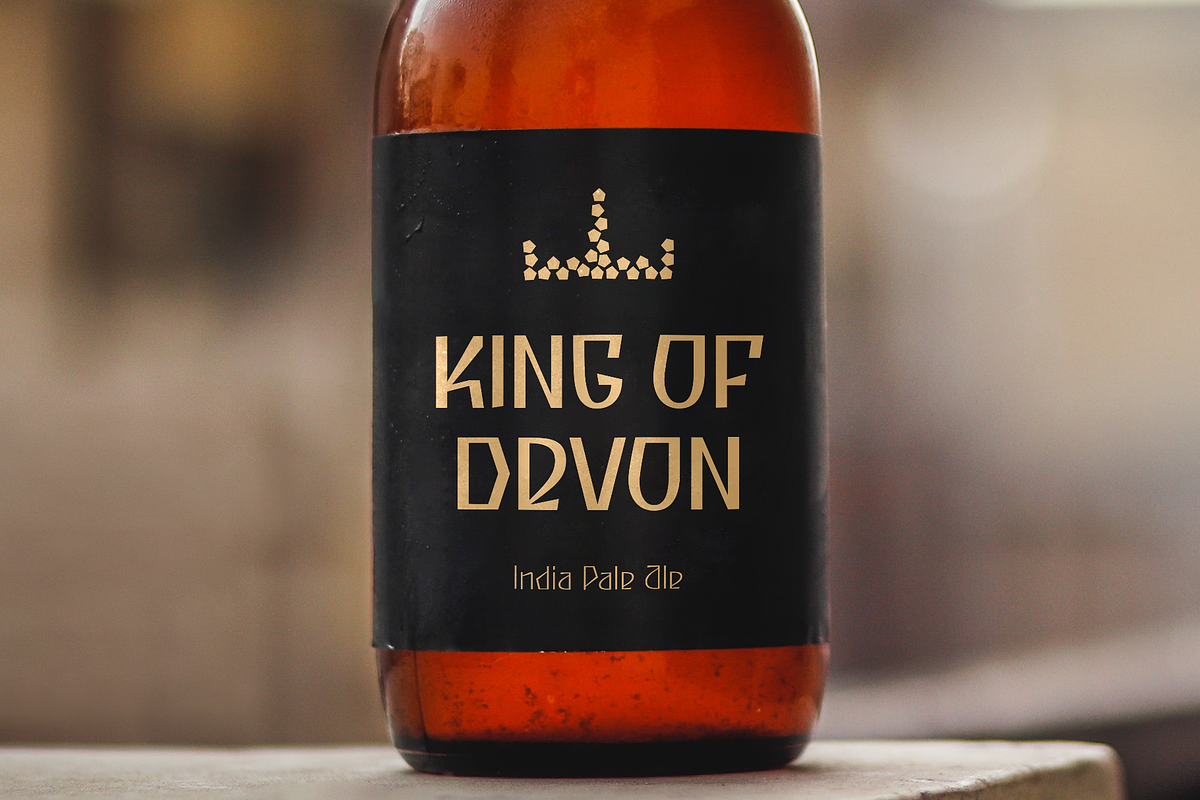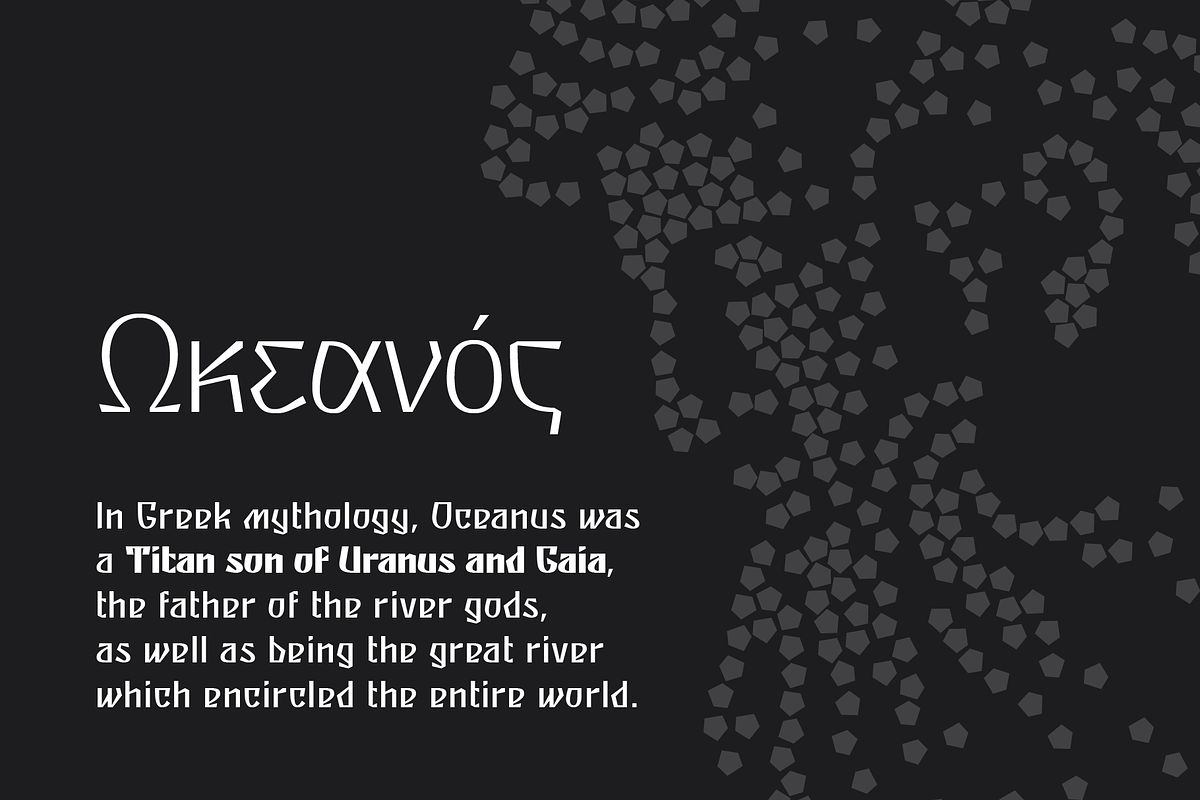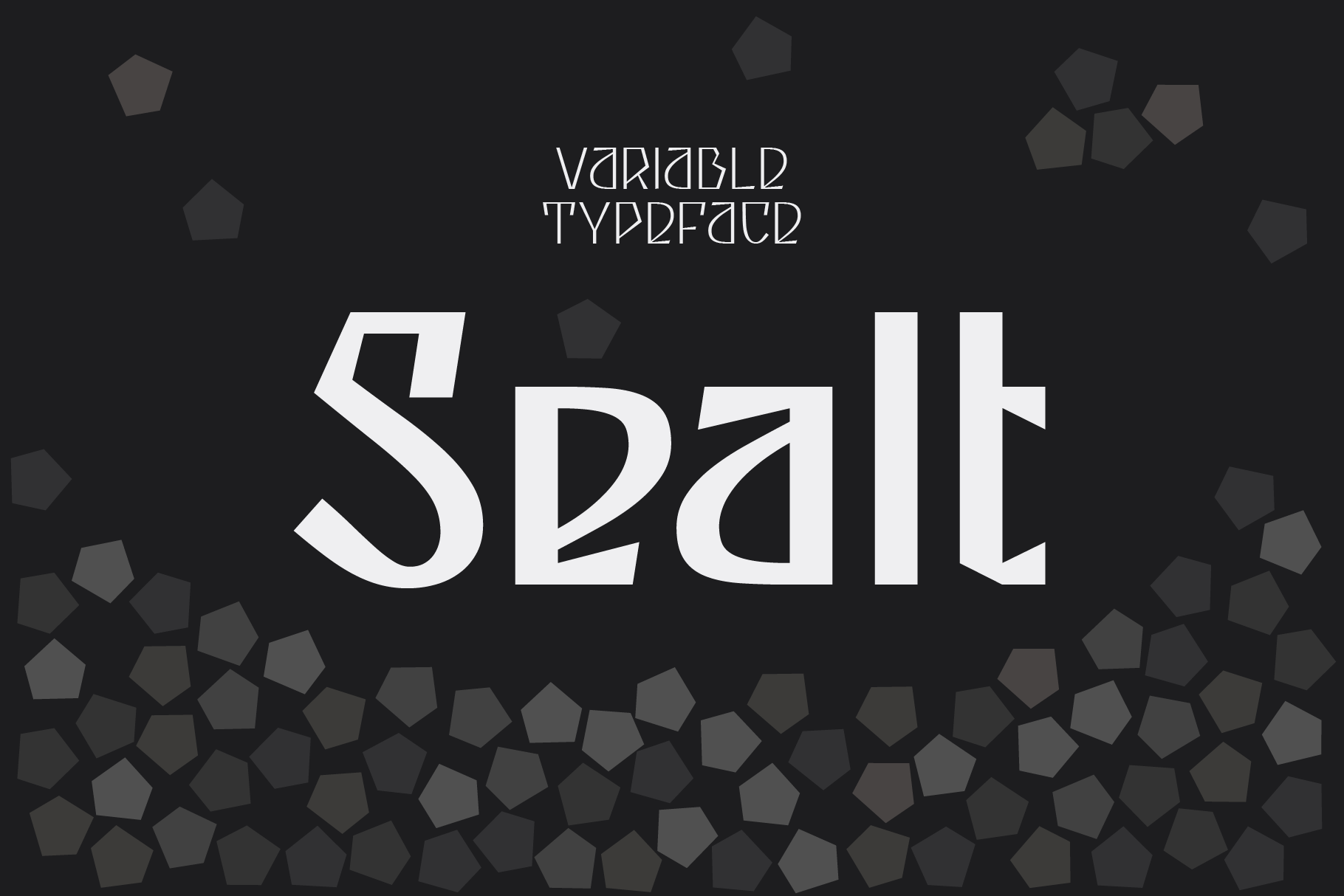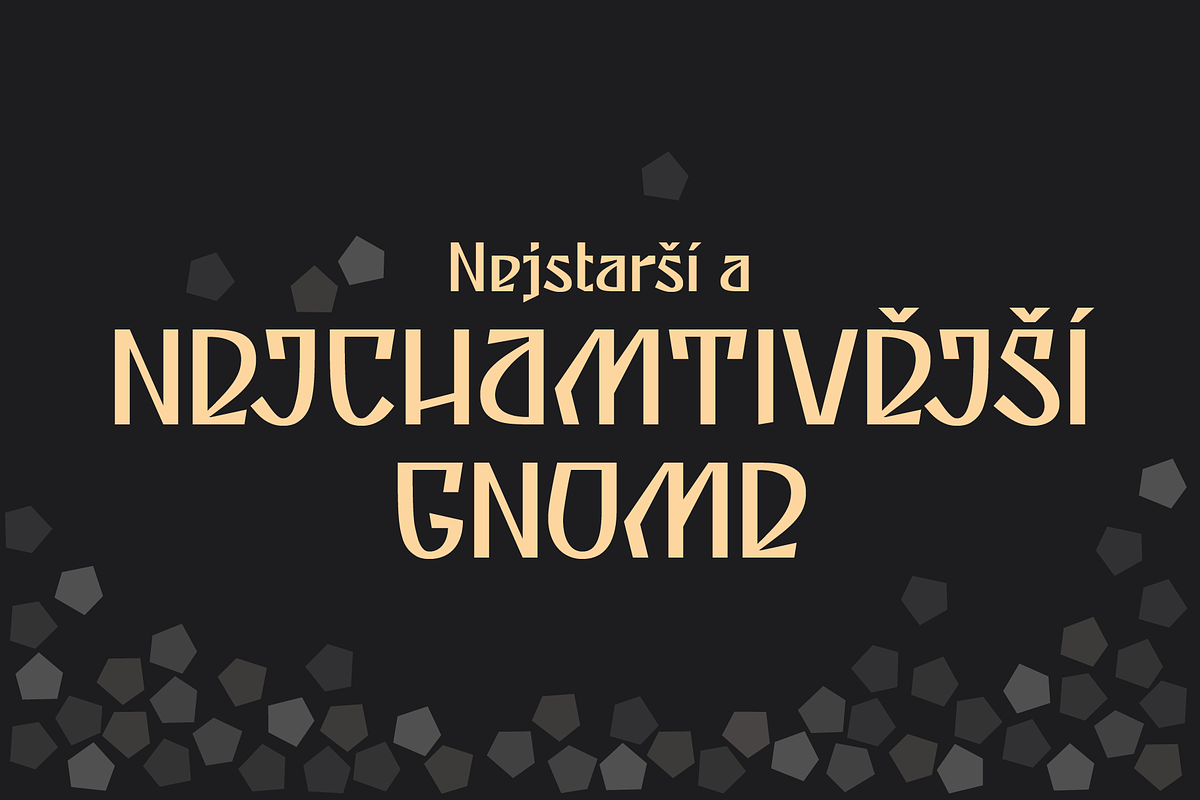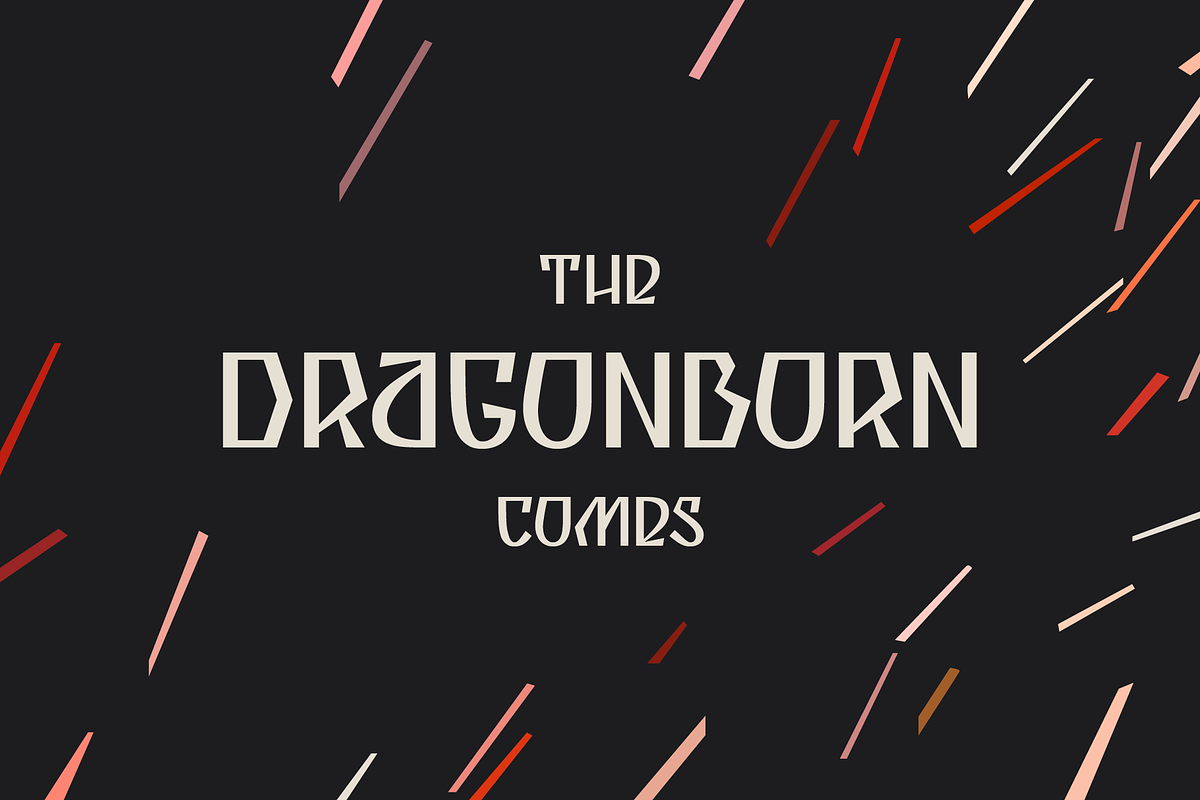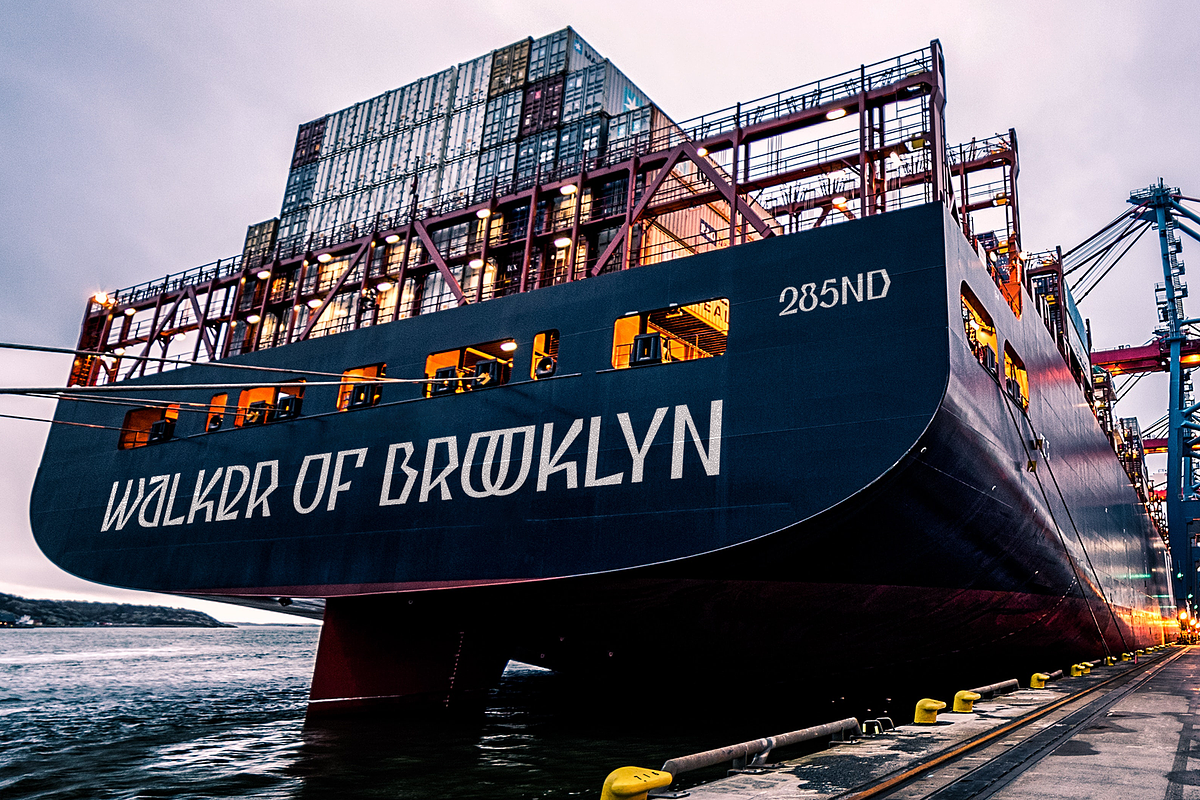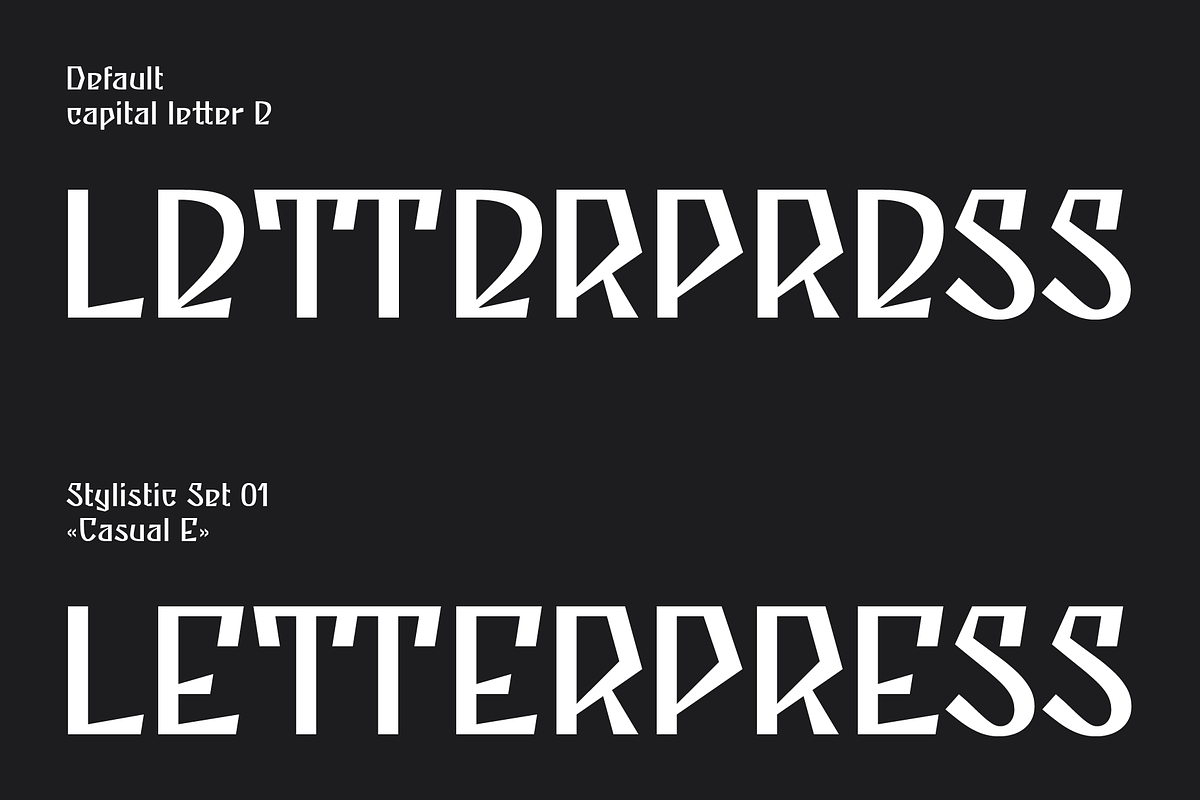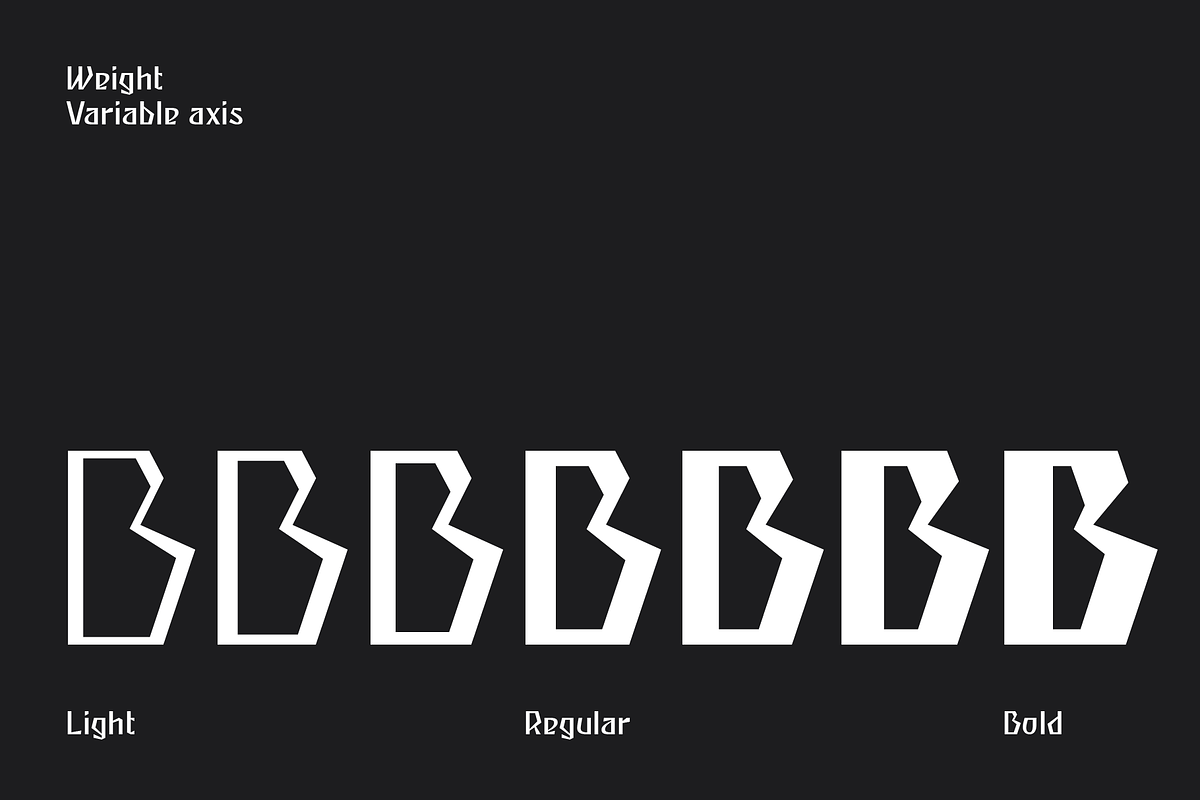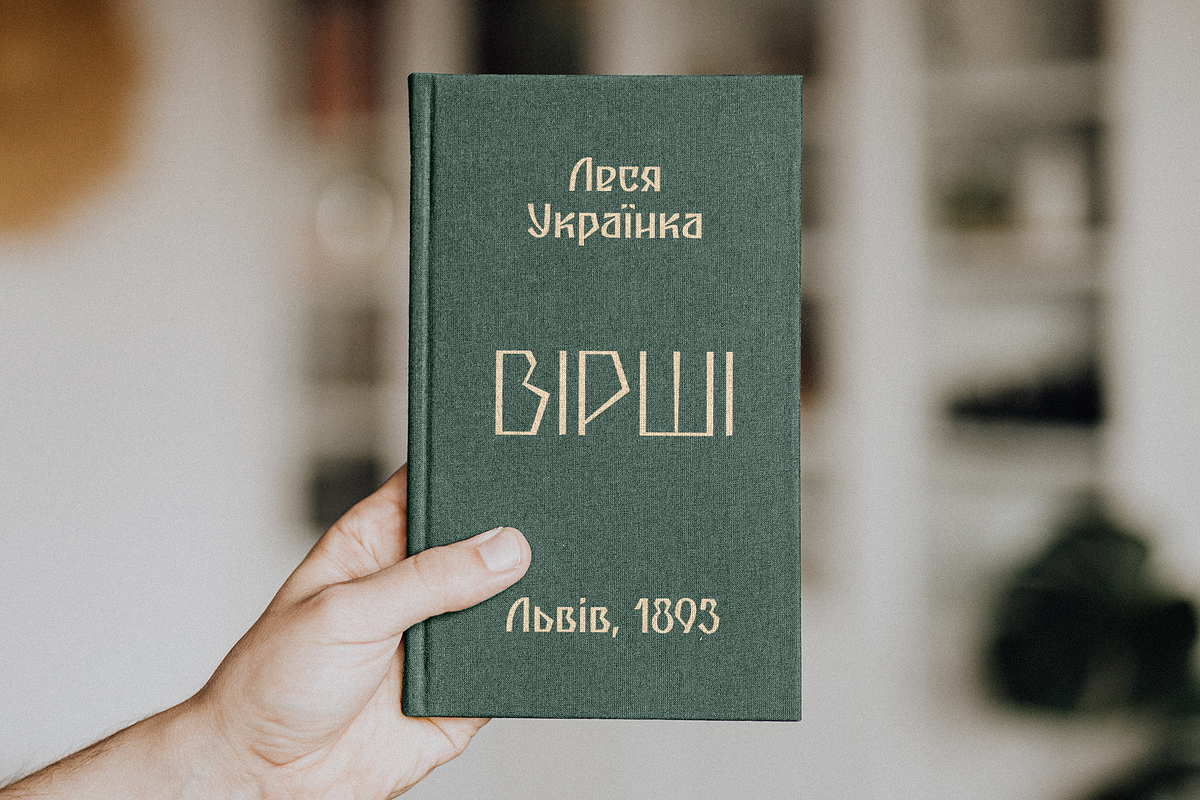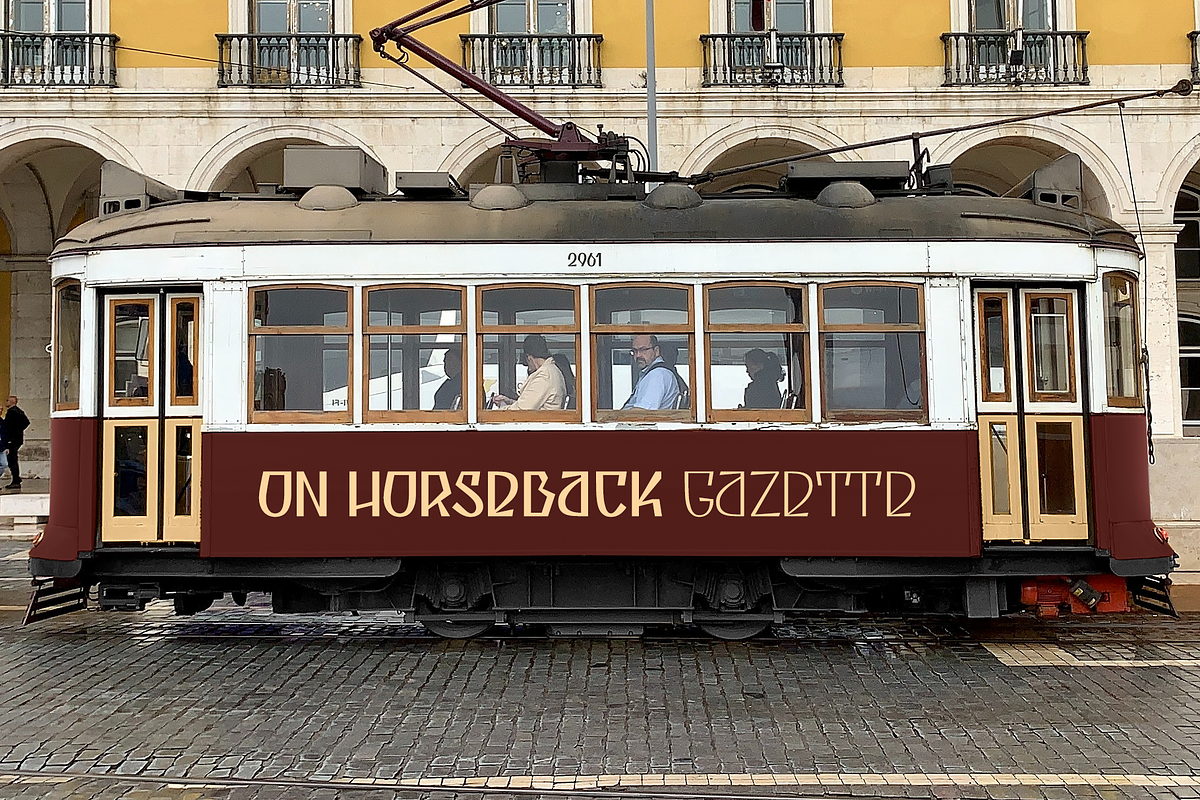
Sealt font
Sealt Typeface is inspired by the oldest saltworks in Eastern Europe, founded in 1250 in Drohobych. Sealt means salt in Old English, so most letters are rough and sharp like salt crystals and seem to be carved out of the rock.
Scripts: Latin, Greek, Cyrillic.
Glyphs: 1196.
Variable font: Sealt VF has weight axis and includes hundreds of weights ranging from Light (300) to Bold (700), so feel free to choose the most accurate weight that you need, using a slider.
Stylistic Set: Casual E (ss01). All capital letters E (including with the diacritical marks and Cyrillic) are replaced with its casual form.
Localized Forms: 47 character substitutions for Azeri, Bulgarian, Catalan, Dutch, German, Kazakh, Moldavian, Polish, Romanian, Tatar, Turkish.
Glyph Composition/Decomposition (Diacritics): Full Latin and based Vietnamese set of diacritics (561 characters). Precomposed.
Ordinals: adehnorst.
Superscript, Subscript, Numerator, Denominator: 0123456789.
Fractions: ¼½¾⅐⅑⅒⅓⅔⅕⅖⅗⅘⅙⅚⅛⅜⅝⅞⅟ (precomposed). Any other fractions (even those typed through a slash) will also be displayed correctly, with the automatic replacement to Numerator + fraction + Denominator.
Slashed Zero: All 0 figures, including Lining, Superscript, Subscript, Numerator, Denominator, and Fractions.
Contextual Alternates: ΆΈΉΊΌΎΏ. Greek uppercase accented characters lose their tonos accent and retain only dieresis in All Caps mode. Turned on by default. If you need tonos accents in All Caps then turn off Contextual Alternates (calt) feature.
Standard Ligatures: OO TT tt fi. Turned on by default.